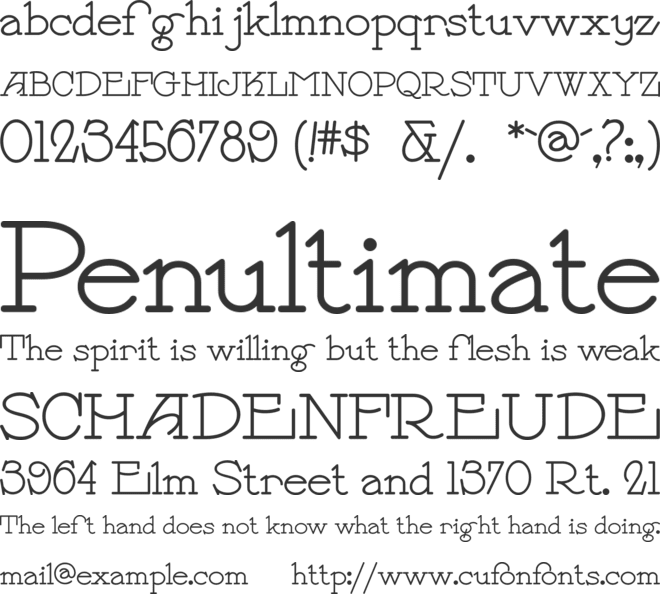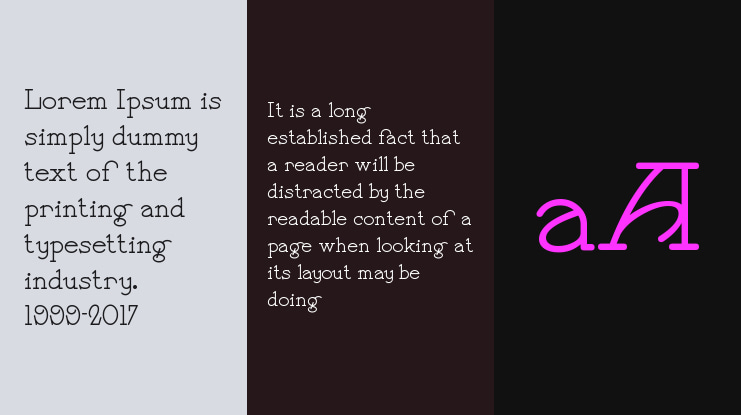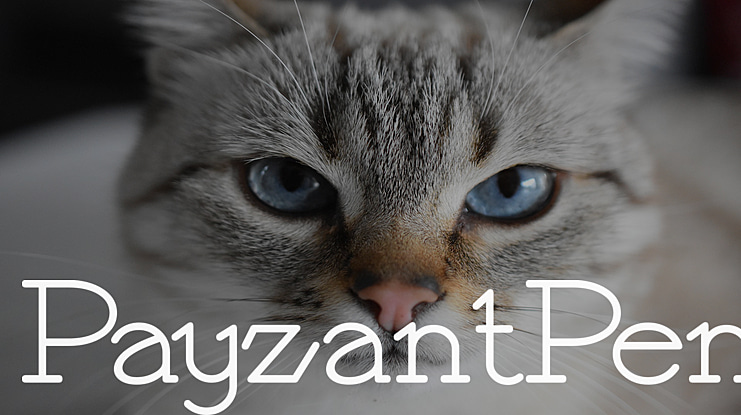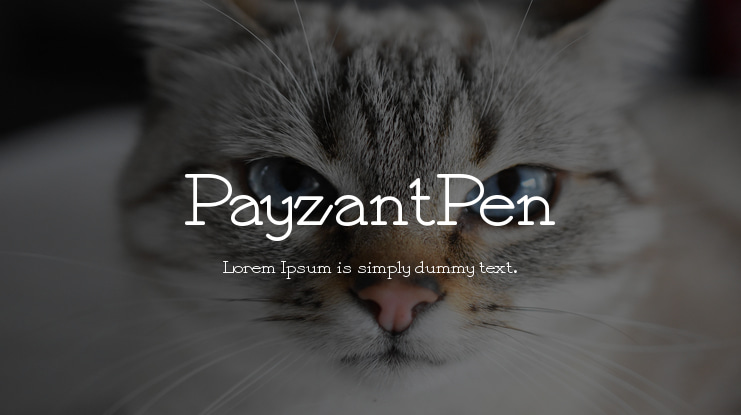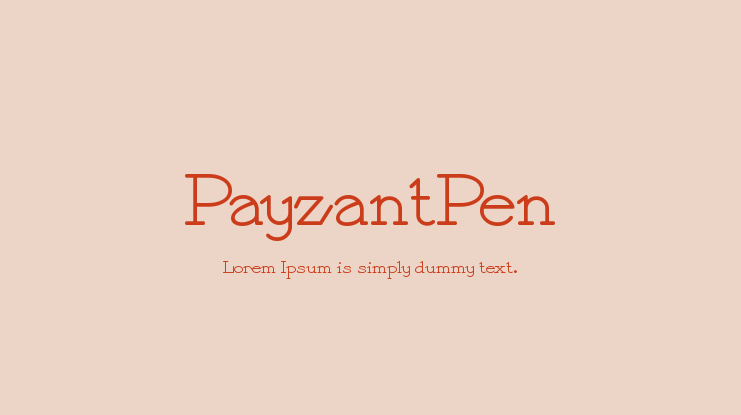
PayzantPen Font Family
Nick Curtis
Evidently, before the Speedball pen made its appearance in 1915, it had a competitor called the Payzant. This demonstration of the pen’s capabilities was presented by the Brothers Atkinson in their A Show at Sho-Cards: Comprehensive, Complete, Concise, published by Fredererick J. Drake & Co. in 1918.